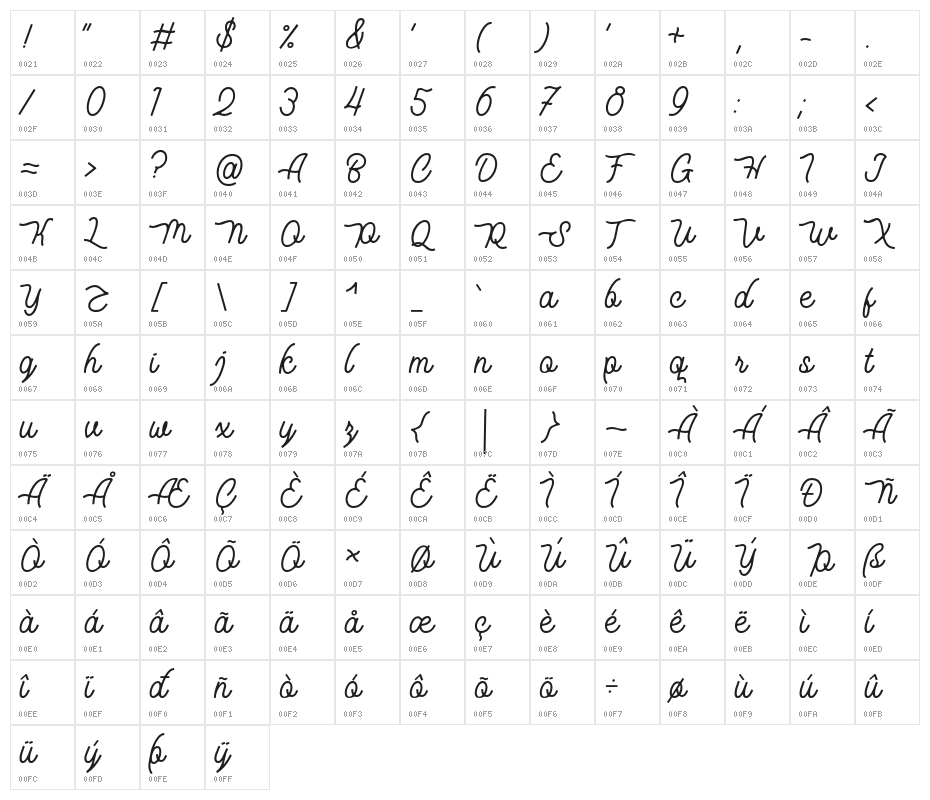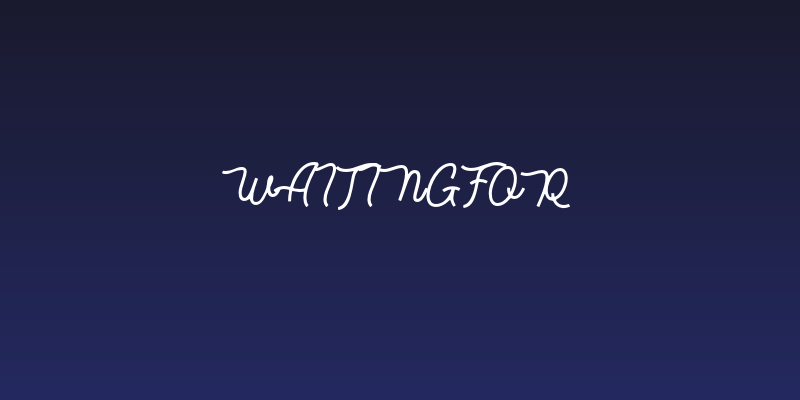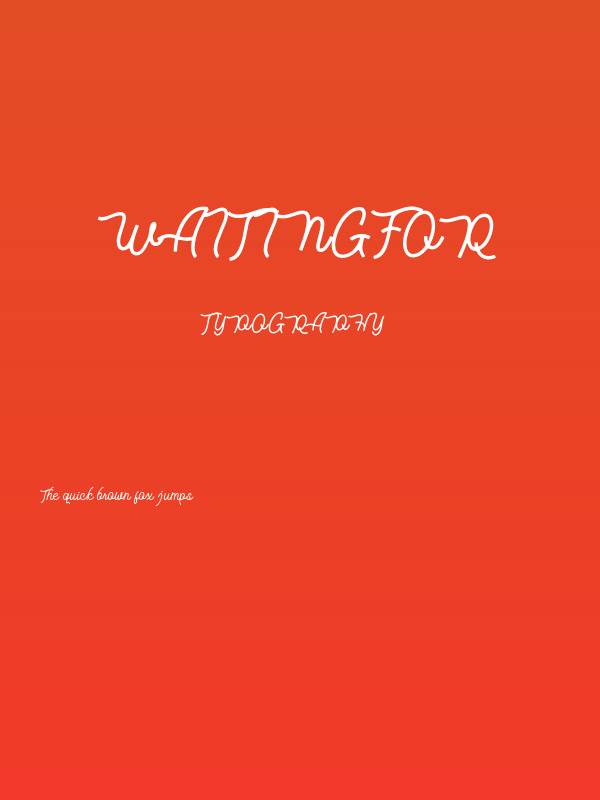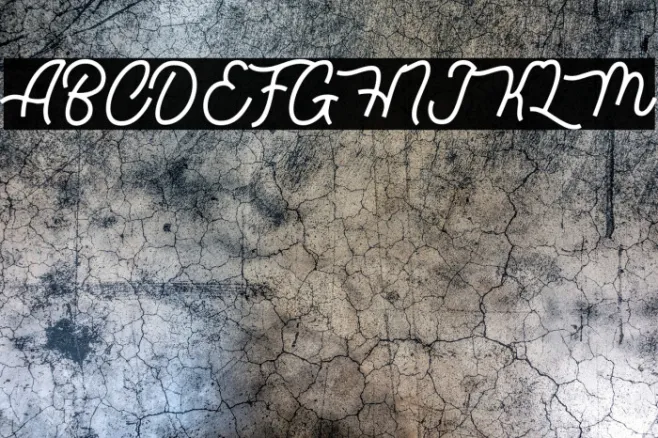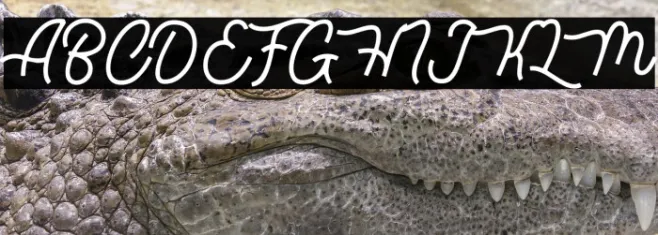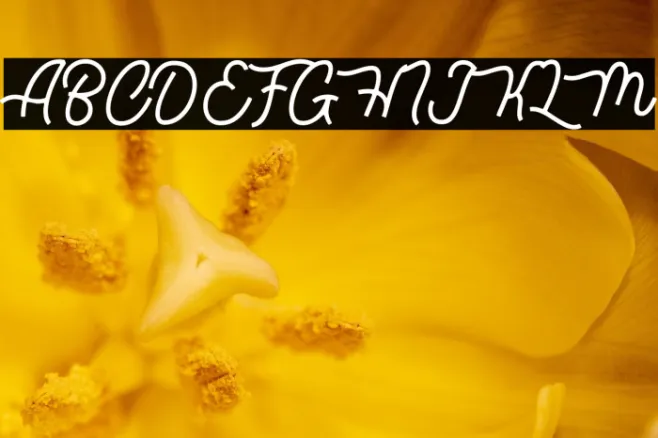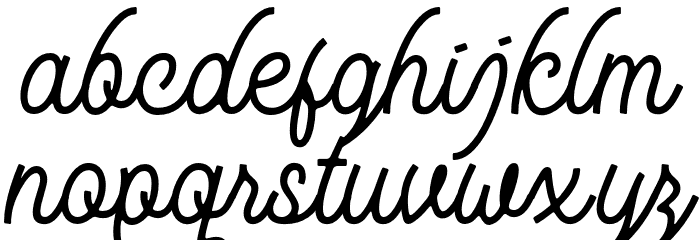
Waitingfor Font
Waitingfor Description
This font features a flowing, cursive style that mimics elegant handwriting. The characters are interconnected, creating a seamless and fluid appearance. The uppercase letters are slightly more embellished, with graceful loops and curves, while the lowercase letters maintain a consistent slant and smooth transitions. The numerals and special characters follow the same cursive style, ensuring uniformity across all elements. This font exudes a sense of sophistication and personal touch, making it ideal for projects that require a handwritten aesthetic.
| Use Case | Logos, Invitations, Decorative Text |
| Proposed Projects | Ideal for wedding invitations, greeting cards, personal branding, and decorative signage. |